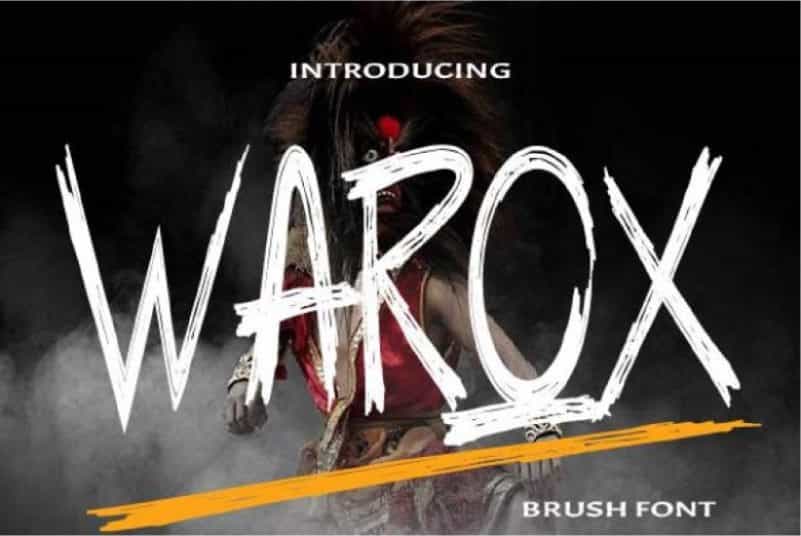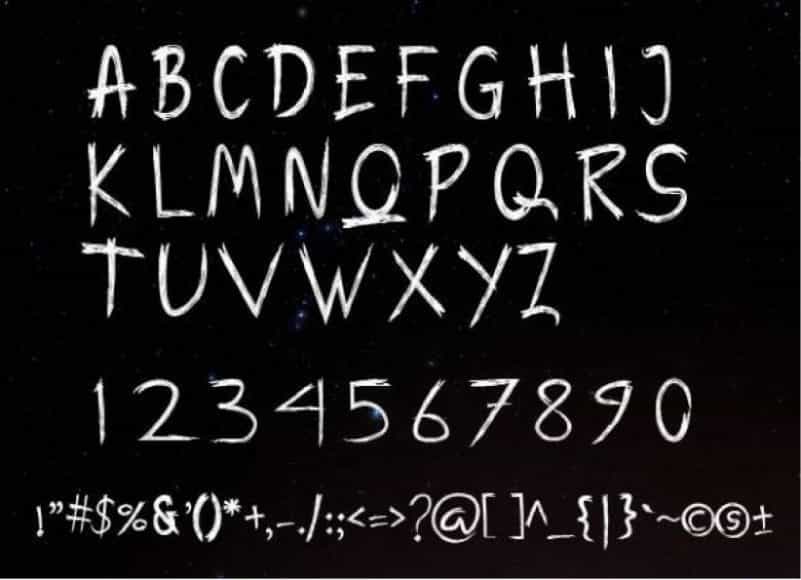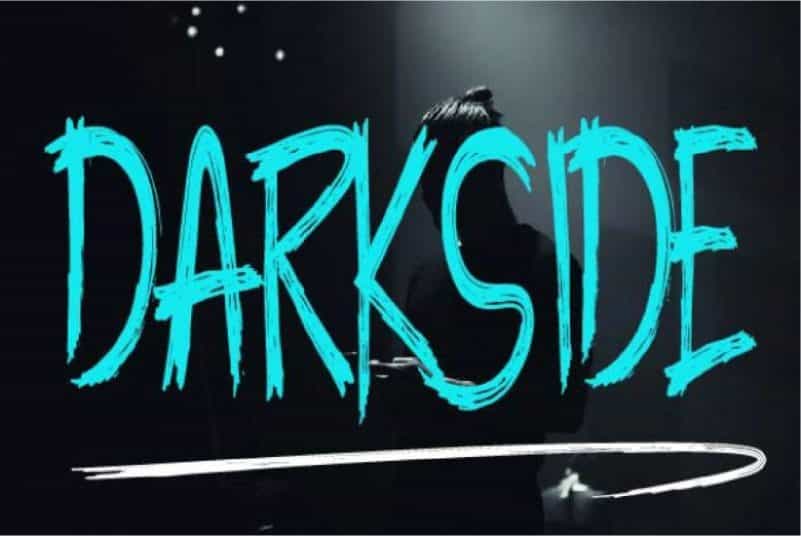
Warox is a sans serif typeface with calligraphy style that is both fresh and energetic. It’s great for crafters and designers. Works well with other programs like Photoshop and Silhouette design studio. it is not for the boring and serious projects because it has a playful appearance.